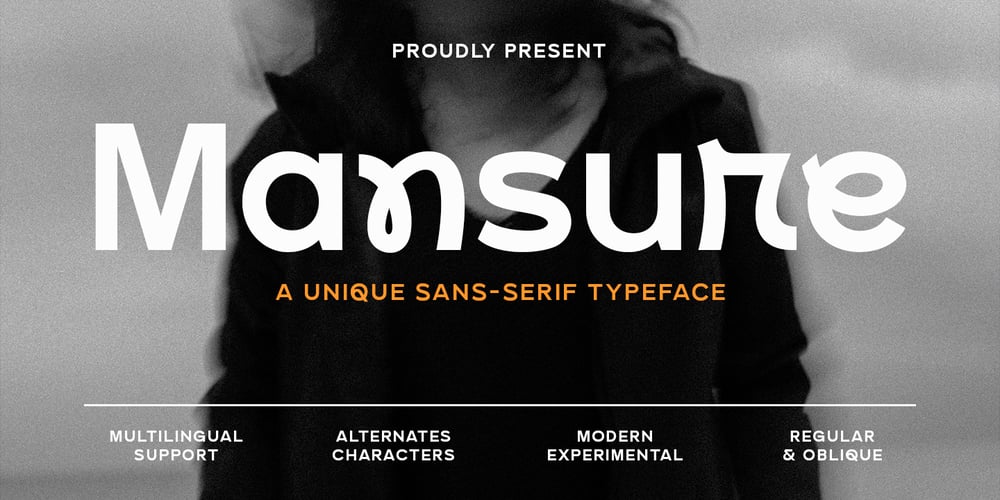
Mansure Font Family was designed by Fajar Gunawan and published by Fargun Studio. Mansure contains 2 styles and family package options. Introducing Mansure FontA unique sans-serif font with stylistic alternatives.Mansure provides a more restrained option while still using a more classic sans serif letterform. Perfect for creating logos, posters, packaging, greeting cards and more! Its charming and warm character will help you give a very attractive and unique look to your project.